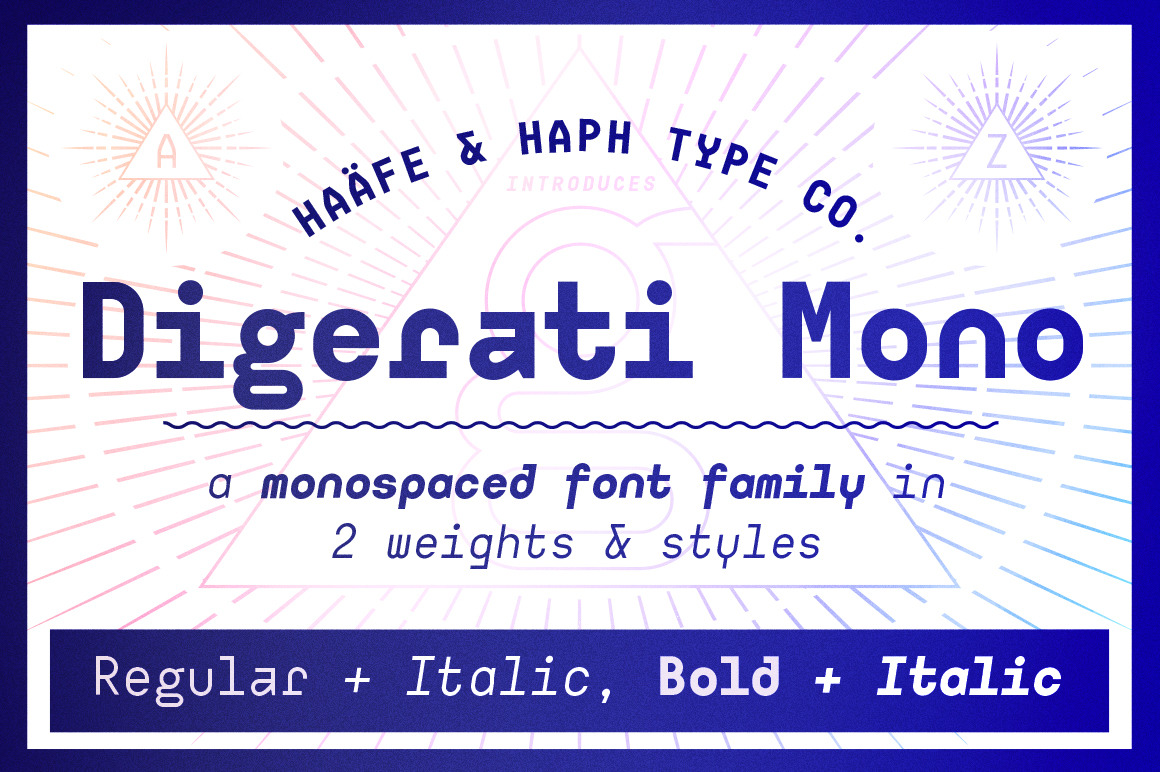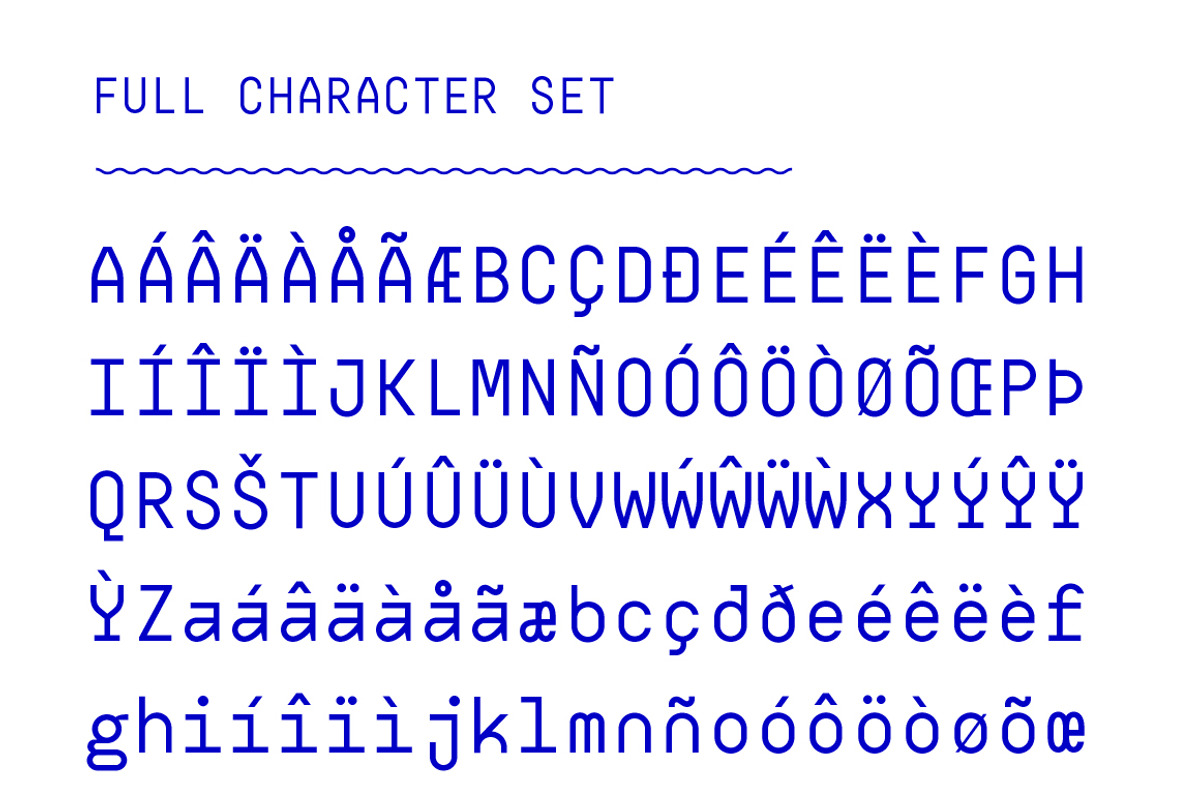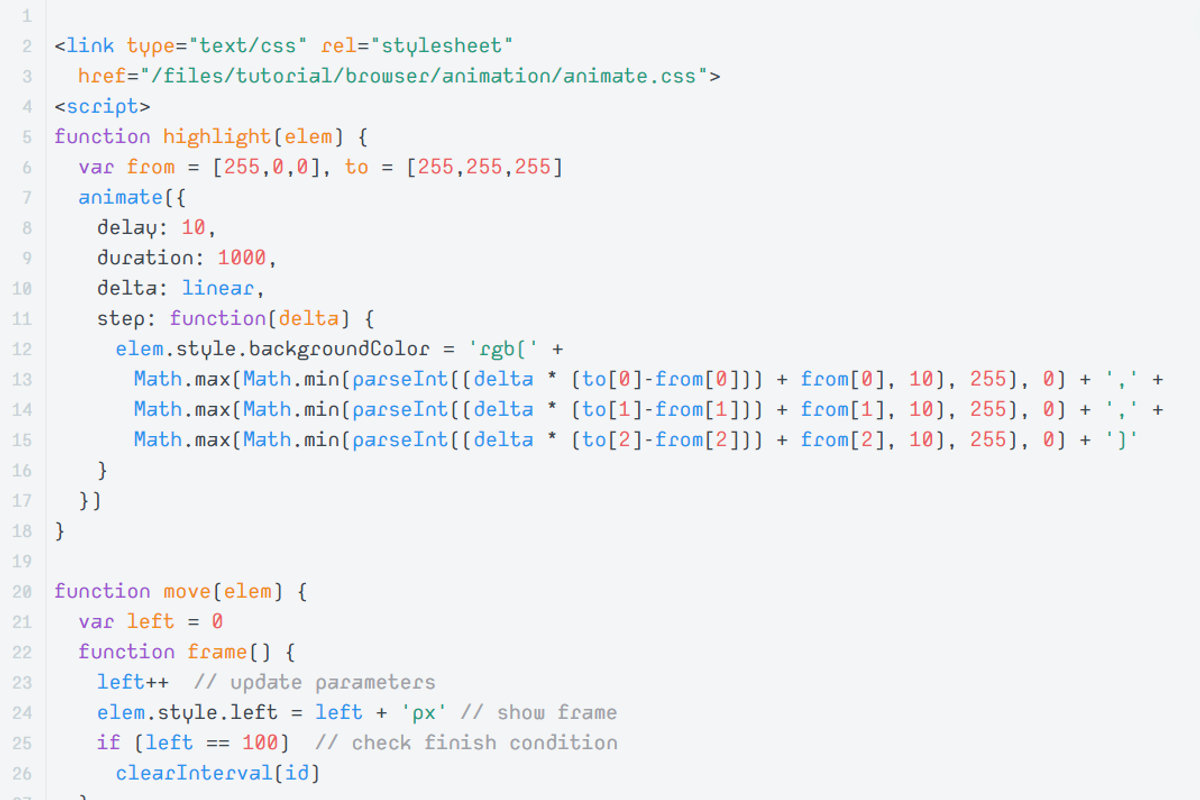
Sale! Digerati Mono Font Family
What is the Digerati? Who are the Digerati? What is internet? I cannot provide these answers, but I can supply this monospaced font family. Inspired by the unique aesthetic of monospaced fonts, Digerati was designed to go beyond the traditional programming environment to work as a display typeface.
Latin 1 Language Support : Western Europe and Americas: Afrikaans, Basque, Catalan, Danish, Dutch, English, Faeroese, Finnish, French, Galician, German, Icelandic, Irish, Italian, Norwegian, Portuguese, Spanish and Swedish.